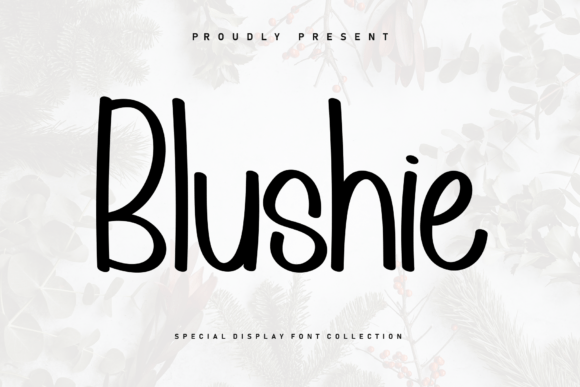
Have you ever stared at a blank canvas, wondering how to bring your creative vision to life? The spark of inspiration often hits when we least expect it – like when we stumble upon the perfect font. For designers and creatives, finding that elusive ‘aha’ moment can be a game-changer. It’s the moment when everything clicks into place, and our imagination runs wild with possibilities.
Enter the Blushie Font, a charming and elegant handwritten font that adds a touch of warmth to any design project. With its playful characters dancing along the baseline, Blushie Font is the perfect addition to your design toolkit. Whether you’re working on a wedding invitation, a children’s book, or a social media campaign, this font is sure to bring a smile to your audience’s faces.
What sets Blushie Font apart is its versatility and charm. It’s a valuable asset for designers looking to add a personal touch to their work, and its sweet and beautiful aesthetic makes it a standout choice for any project.
Blushie Font Key Features
- Font Family: Blushie Font is a sans-serif font family designed for digital use.
- Unique Characteristics: Blushie Font features a distinctive rounded design with subtle curves, making it perfect for modern and minimalist designs.
Blushie Font Review
I recently had the chance to work with the Blushie Font, and I must say it’s a unique and charming addition to any design project.
- Playful and whimsical feel: Blushie Font is perfect for designs that need a touch of playfulness and fun.
- Beautiful handwritten style: The font’s handwritten style makes it ideal for quotes, titles, and headings.
- Good legibility: Despite its playful nature, the font is still easy to read and understand.
- Not suitable for formal designs: Blushie Font is too playful for formal or professional designs.
- Limited character set: The font’s character set is limited, which might make it difficult to use for longer texts.
- May not work well with bold formatting: Blushie Font can become too overwhelming when used with bold formatting, so it’s best to use it in its regular form.
Overall, I think Blushie Font is a great addition to any designer’s toolkit, but it’s essential to use it wisely. It’s perfect for designs that need a touch of playfulness and fun, but it might not be the best choice for more formal or professional projects.
Tips for Getting the Most Out of Blushie Font
Use Blushie Font for feminine and elegant designs, such as wedding invitations, baby shower decorations, and fashion designs.
Combine Blushie Font with pastel colors and floral patterns for a soft and romantic look.
Use Blushie Font for:
- Wedding invitations and decorations
- Baby shower invitations and decorations
- Fashion designs and branding
- Home decor and stationery
Alternatives to Blushie Font
Ostrich Sans is a modern sans-serif font that features a similar playful and approachable feel to Blushie Font. It’s ideal for use in branding, packaging, and digital design projects where a friendly and youthful vibe is desired. Compared to Blushie Font, Ostrich Sans has a more geometric and streamlined aesthetic, making it a great choice for projects that require a clean and minimalist look.
Lato is a sans-serif font that offers a more elegant and sophisticated alternative to Blushie Font. It’s suitable for use in corporate branding, advertising, and editorial design projects where a professional and refined look is required. While Lato shares some similarities with Blushie Font in terms of its friendly and approachable feel, it has a more mature and polished aesthetic.
Alex Brush is a handwritten font that offers a more casual and creative alternative to Blushie Font. It’s ideal for use in projects that require a personal and emotive touch, such as social media graphics, invitations, and wedding stationery. Compared to Blushie Font, Alex Brush has a more expressive and variable feel, making it a great choice for projects that require a unique and artistic look.
Q: What is the recommended font size and line height for optimal readability with the Blushie Font?
For optimal readability, we recommend using font sizes between 12pt and 24pt, with a line height of at least 1.2 to 1.5 times the font size. This will ensure that the text remains clear and legible, even at smaller sizes.